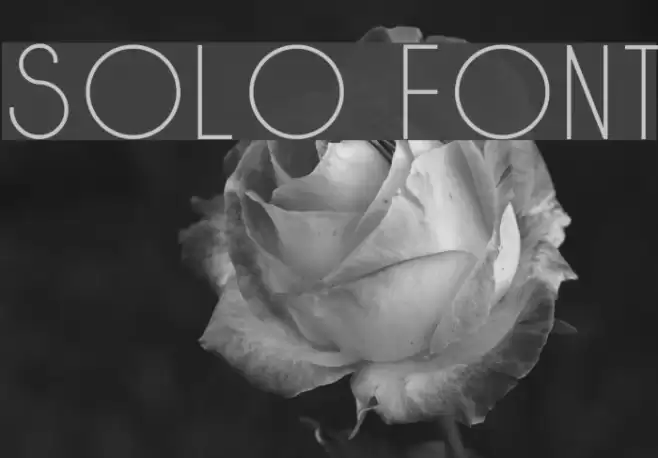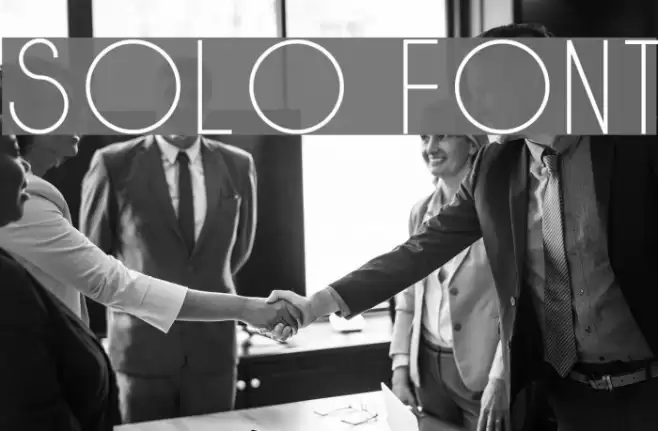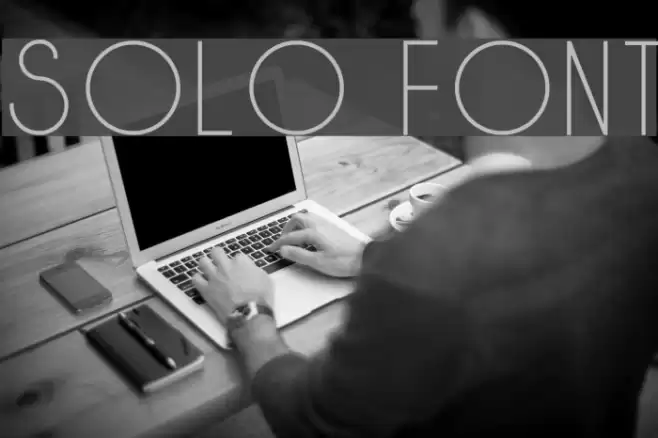
Solo Font
Solo Description
This font features a clean and modern aesthetic with thin, uniform strokes that give it a sleek and elegant appearance. The characters are well-proportioned and maintain a consistent height, contributing to a harmonious and balanced look. The uppercase and lowercase letters are distinct yet complementary, with rounded edges that soften the overall geometric structure. The numerals and special characters are designed to match the font's minimalist style, ensuring readability and versatility across different applications. Its simplicity and clarity make it suitable for a wide range of design projects.
A modern, thin-stroked font with a clean and elegant design from Uncategorized fonts.
- Proposed Projects: Ideal for branding, editorial design, web design, and minimalist posters.